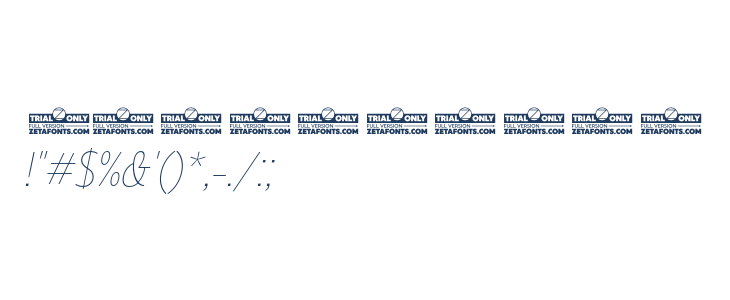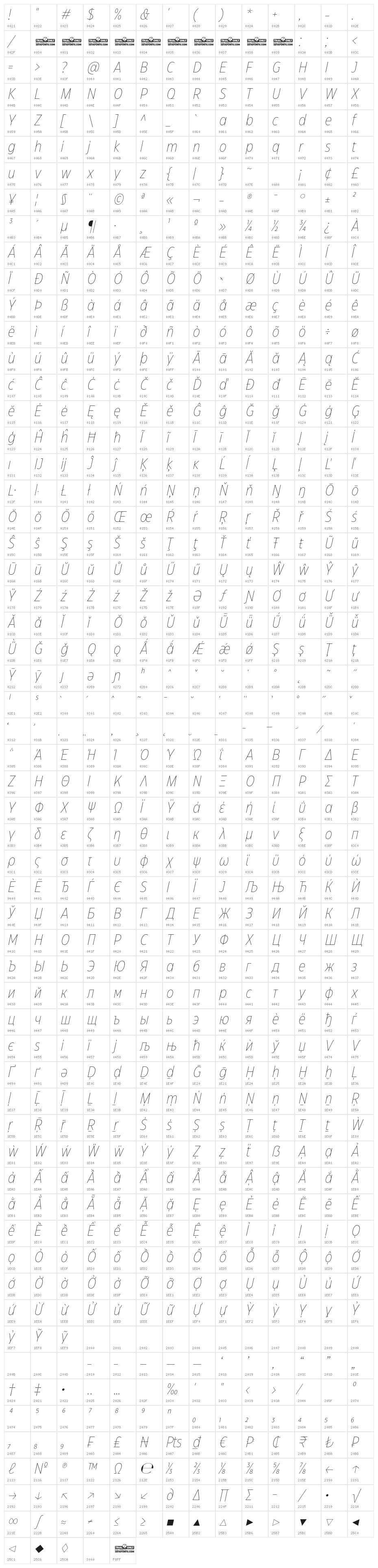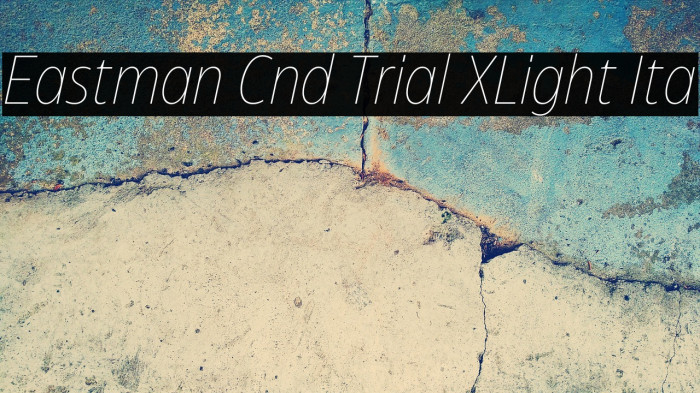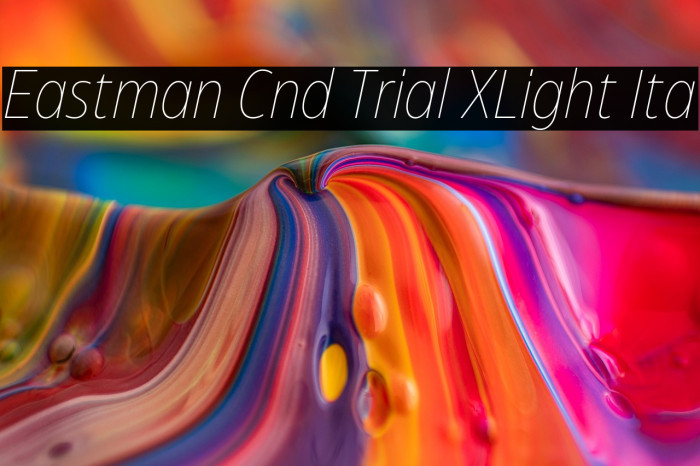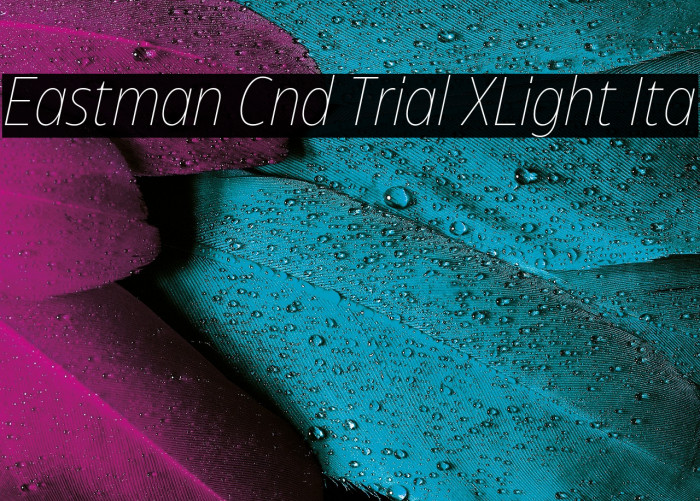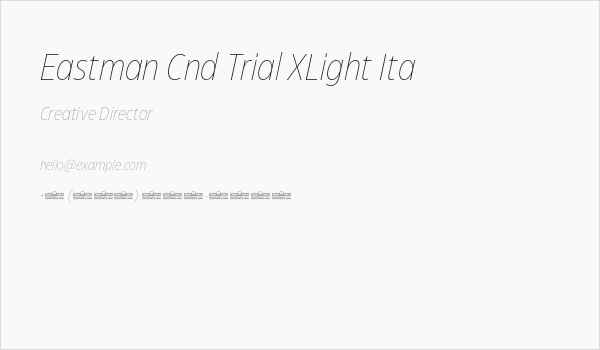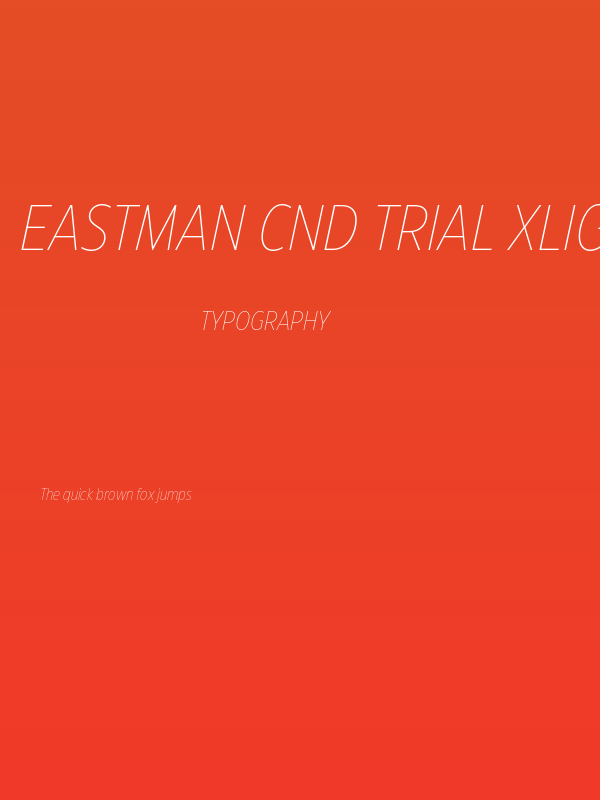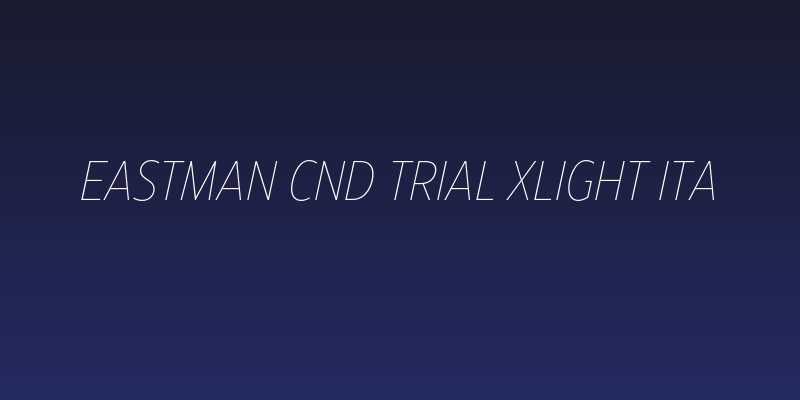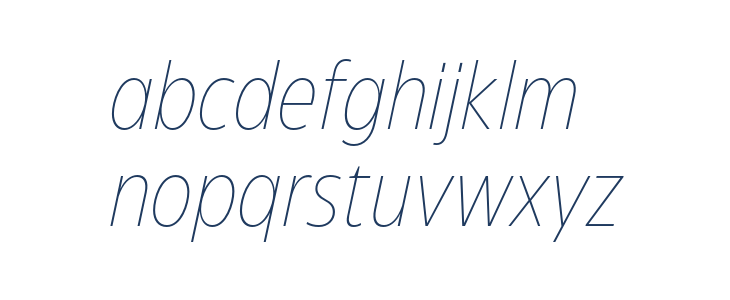
Eastman Cnd Trial XLight Ita Font
Eastman Cnd Trial XLight Ita Description
This font exhibits a sleek and modern design with a condensed and italicized style. The characters are elegantly thin, providing an extra-light appearance that enhances its contemporary feel. The uppercase and lowercase letters maintain a consistent slant, contributing to a dynamic and fluid aesthetic. The numerals and special characters are designed with the same thin strokes, ensuring uniformity across all glyphs. The overall look is clean and minimalistic, making it suitable for projects that require a sophisticated and understated typeface.
Proposed ProjectsIdeal for fashion magazines, modern branding, elegant invitations, and minimalist web design.